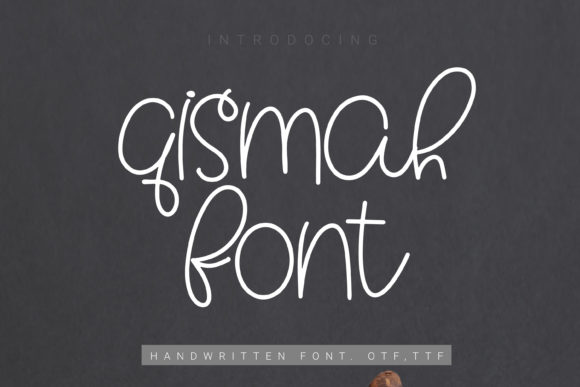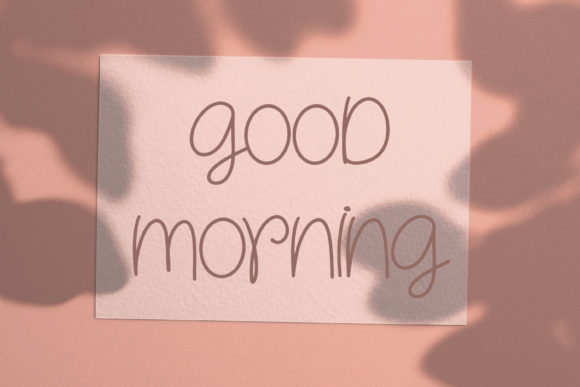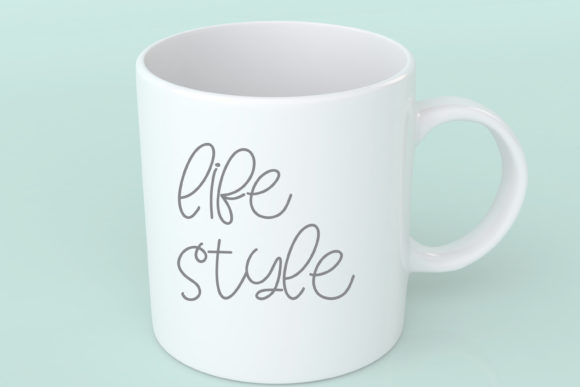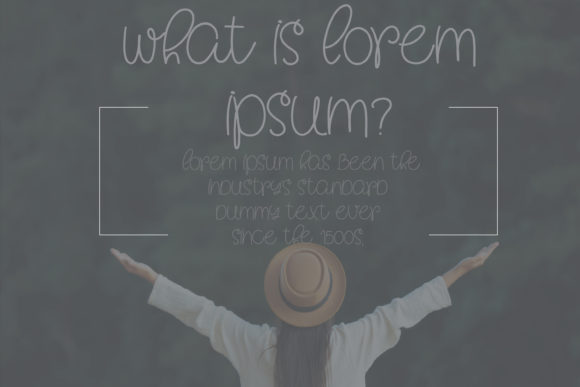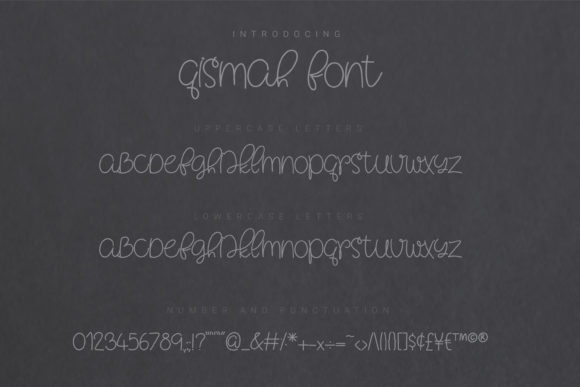
Qismah Font
Qismah is a beautiful, round lettered handwritten font. With its neat and beautiful arrangement of letters, this font will look outstanding in both formal and non-formal designs.